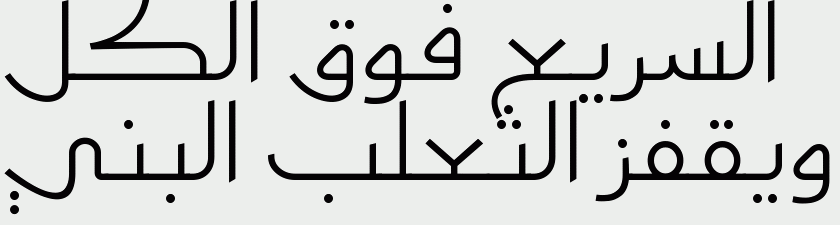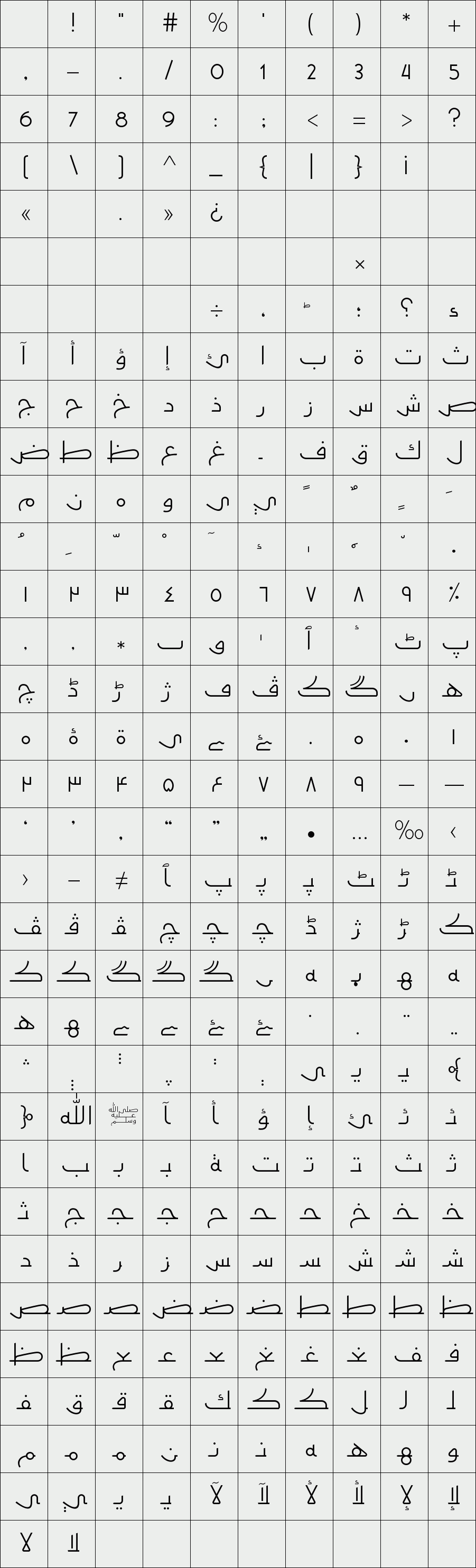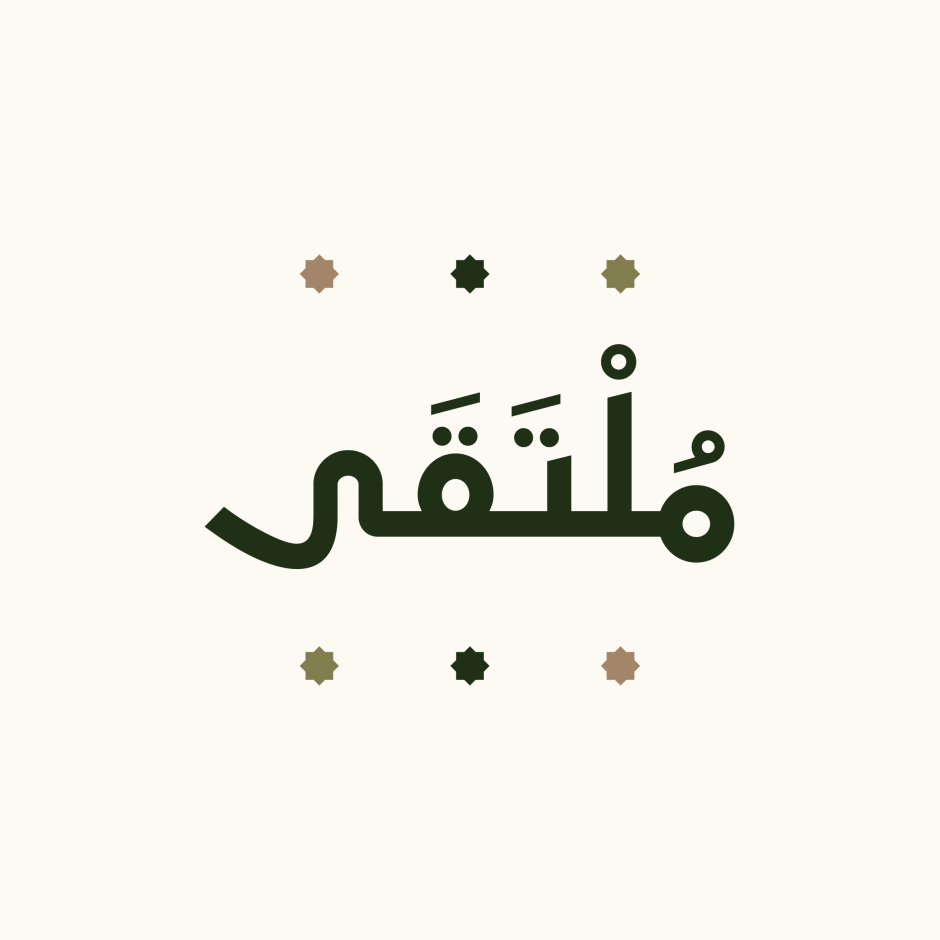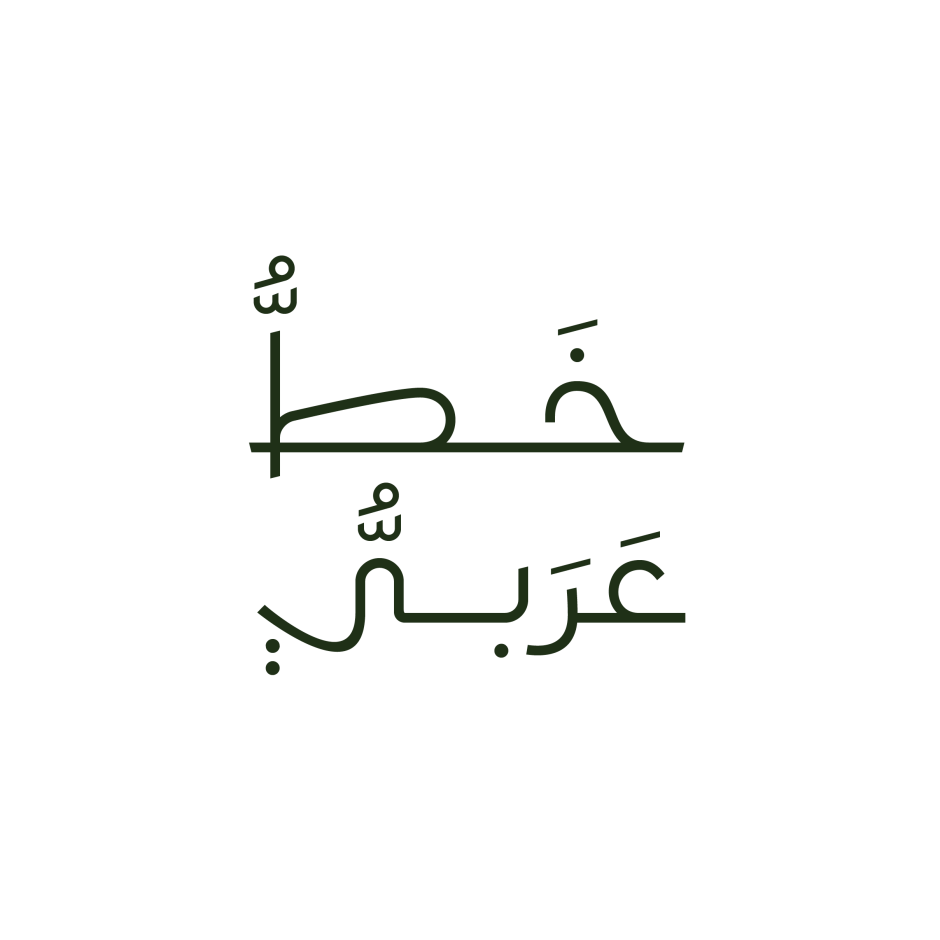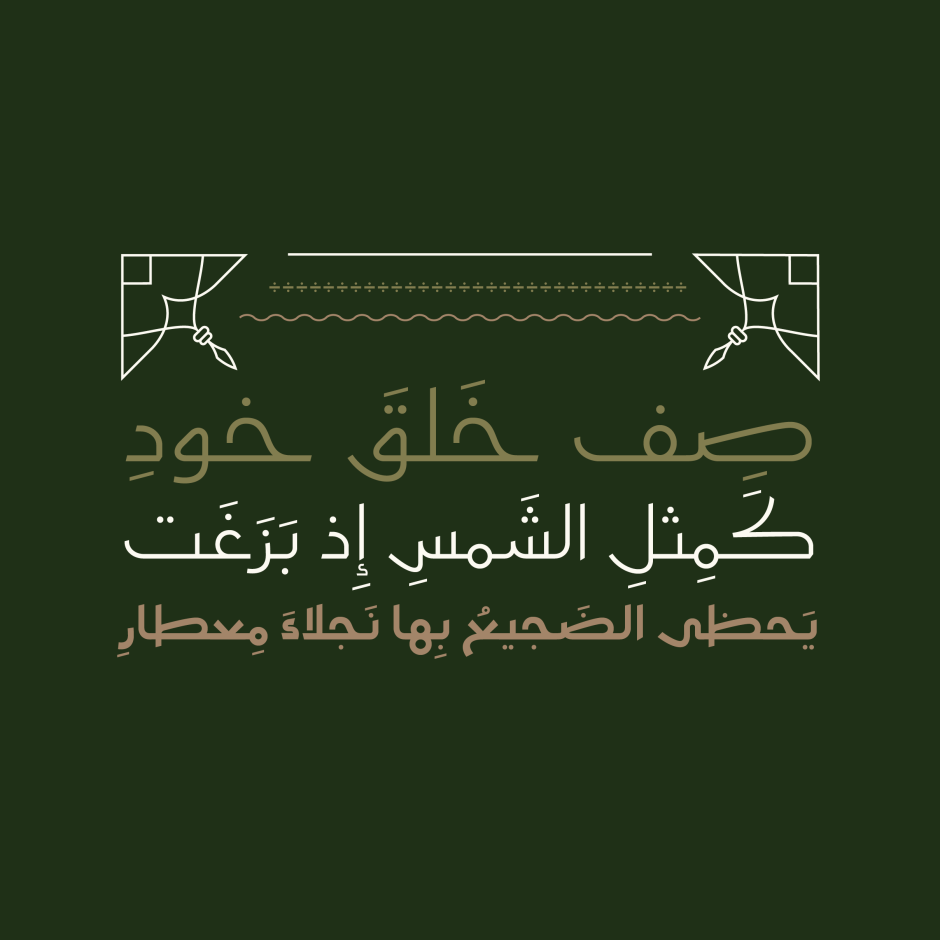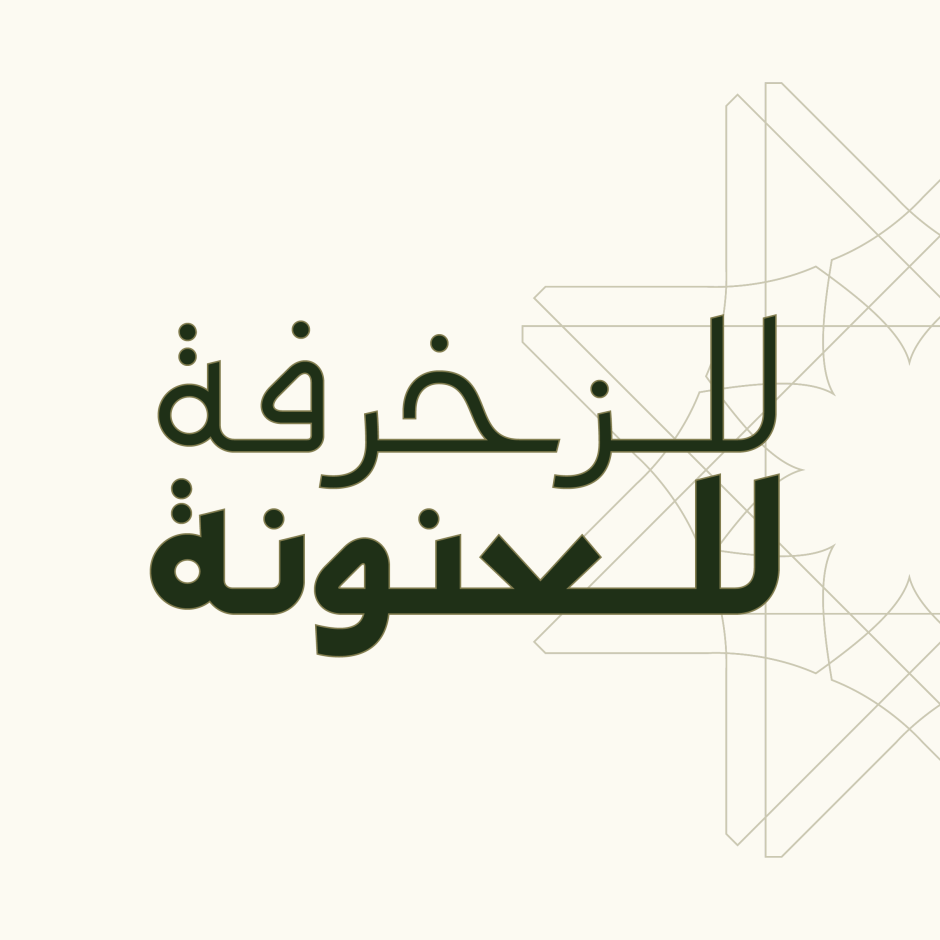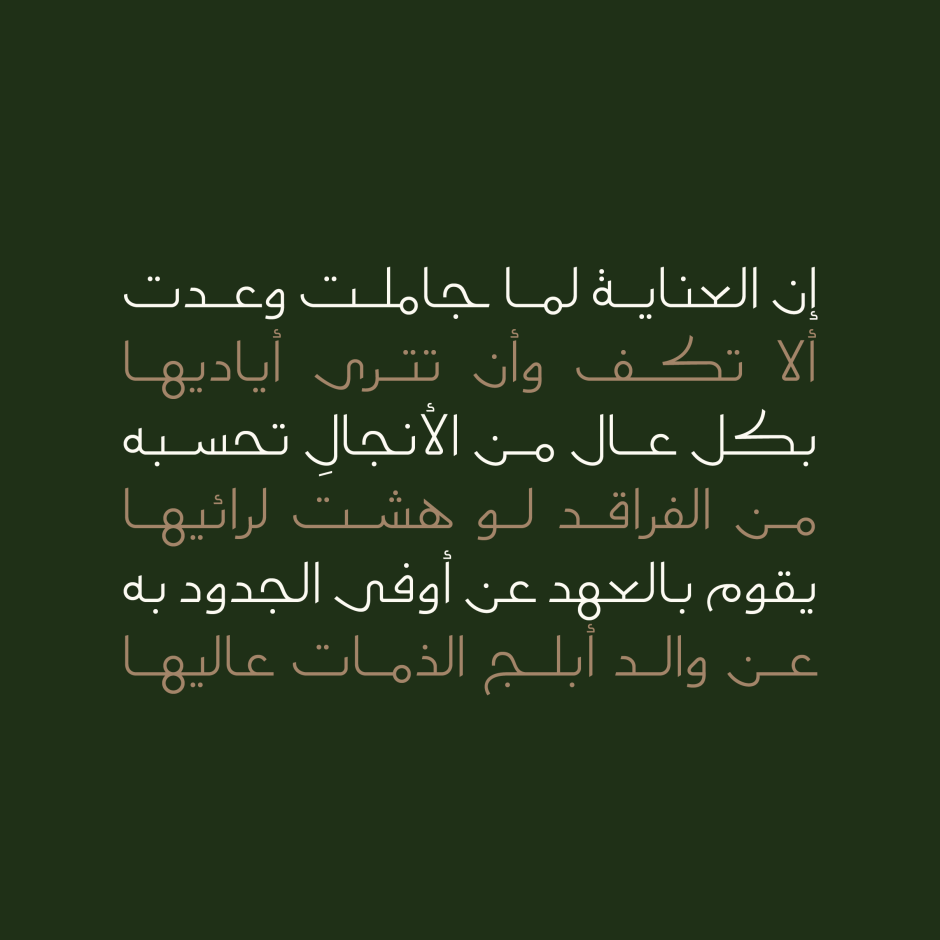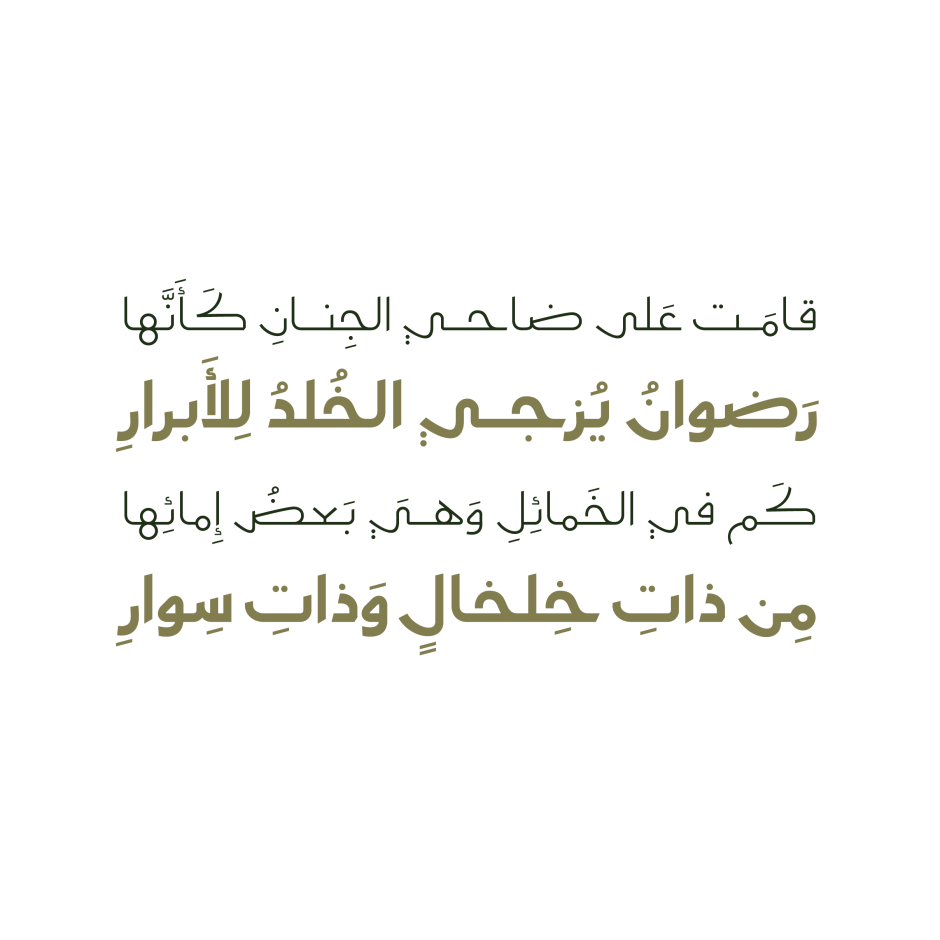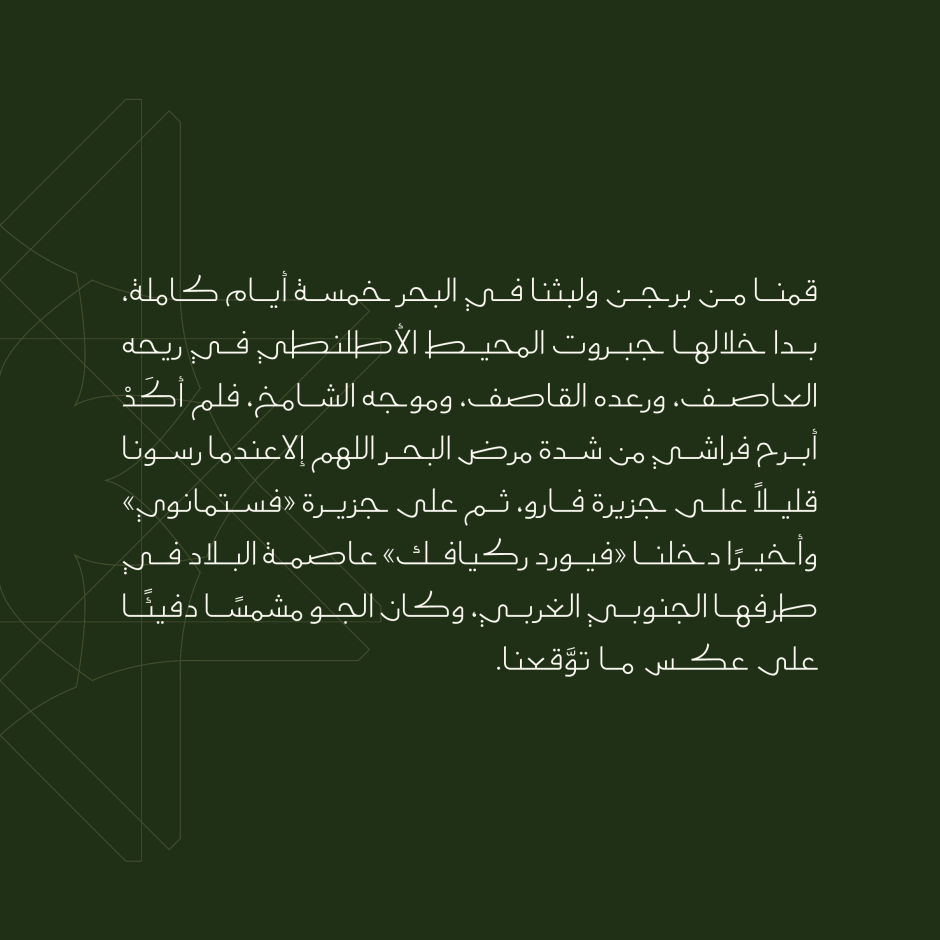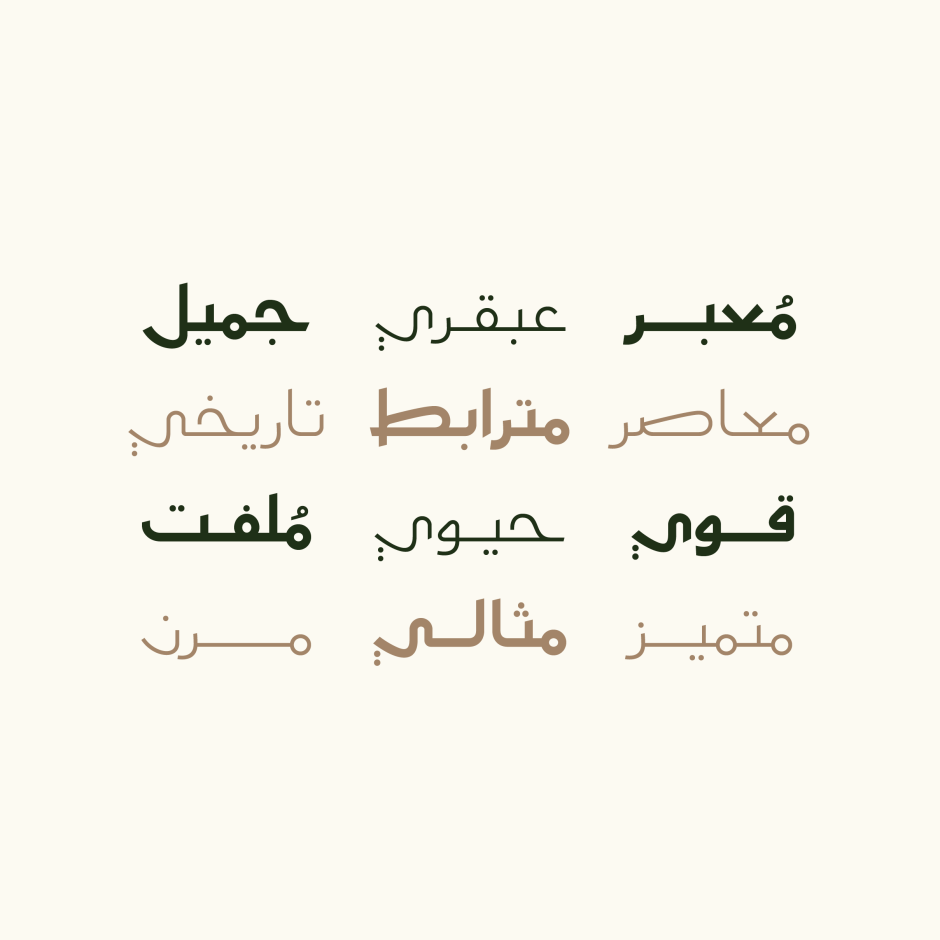
Moltaqa
Moltaqa (which is the Arabic word for Rendezvous) is an Arabic display font that is inspired by the early styles of Arabic handwriting from the 7th century AD. The typeface consists of two weights (Regular and Bold) and it suits print, web and mobile applications.